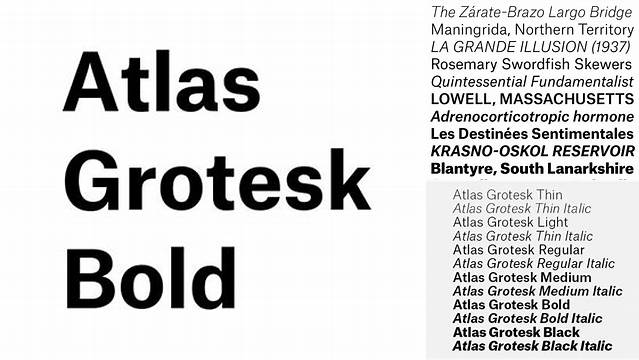
Introduction to Atlas Grotesk
Atlas Grotesk is a typeface that has garnered significant attention in the design world for its clean lines, versatility, and modern aesthetic. For designers and typography enthusiasts, finding the right font can be a game-changer, and Atlas Grotesk often fits the bill. This article delves into the specifics of Atlas Grotesk, exploring its characteristics, ideal use cases, and, most importantly, how you can access free TTF downloads.
The appeal of Atlas Grotesk lies in its simplicity and legibility. The font belongs to the sans-serif family, which is known for its lack of decorative serifs, making it ideal for both body text and headlines. Its neutral yet contemporary design allows it to seamlessly integrate into various projects, from websites and print materials to branding and editorial layouts. One of the key reasons designers gravitate towards Atlas Grotesk is its ability to convey a sense of clarity and sophistication. Its balanced letterforms and consistent strokes contribute to a harmonious reading experience, ensuring that the message is communicated effectively. Moreover, the font's versatility extends to different design contexts, whether it's a minimalist corporate website or a vibrant marketing campaign. Its adaptability makes it a valuable asset in any designer's toolkit.
Atlas Grotesk's modern aesthetic is characterized by its geometric structure and precise execution. The letterforms are meticulously crafted, resulting in a typeface that feels both contemporary and timeless. This balance is crucial, as it allows the font to remain relevant across different design trends and periods. The clean lines and open counters (the enclosed or partially enclosed negative space within a letter) contribute to its legibility, even at smaller sizes. This is particularly important for digital applications, where readability on screens is paramount. Furthermore, Atlas Grotesk offers a range of weights and styles, from light and thin to bold and black. This variety provides designers with the flexibility to create visual hierarchy and emphasis within their designs. The different weights can be used to differentiate between headings and body text, highlight key information, and add visual interest. The availability of italic styles further enhances the font's versatility, allowing for nuanced typography and expressive layouts. The attention to detail in Atlas Grotesk's design is evident in every aspect, making it a reliable choice for professional projects. Its ability to perform well in diverse contexts underscores its value as a foundational typeface for any design endeavor.
Key Features and Design Elements of Atlas Grotesk
To fully appreciate Atlas Grotesk, it's important to delve into its key features and design elements. Atlas Grotesk is celebrated for its versatility and contemporary appeal, making it a favorite among designers. Understanding what sets it apart can help you determine if it’s the right font for your project. Let's explore the unique characteristics that make Atlas Grotesk a standout choice.
One of the defining features of Atlas Grotesk is its clean and minimalist design. As a sans-serif typeface, it lacks the small decorative strokes (serifs) found in traditional fonts like Times New Roman. This absence of serifs gives Atlas Grotesk a modern and uncluttered appearance, making it ideal for projects that require a sleek and contemporary look. The simplicity of its design ensures that it doesn’t distract from the content, allowing the message to take center stage. The letterforms in Atlas Grotesk are carefully crafted with a focus on clarity and legibility. The strokes are consistent in thickness, and the counters (the enclosed spaces within letters like “o” and “p”) are open and generous, enhancing readability even at small sizes. This attention to detail is crucial for body text, where ease of reading is paramount. The balanced proportions of the letters contribute to a harmonious overall appearance, making Atlas Grotesk a pleasure to read. Its minimalist aesthetic also makes it highly adaptable to different design contexts, from web design and branding to print materials and editorial layouts. The neutrality of the font allows it to pair well with a variety of other typefaces, giving designers flexibility in creating visual contrast and hierarchy.
Another significant design element of Atlas Grotesk is its geometric structure. The letterforms are based on simple geometric shapes, giving the font a sense of precision and order. This geometric foundation contributes to its modern and sophisticated feel, making it a popular choice for corporate branding and professional communications. The clean lines and precise angles of Atlas Grotesk convey a sense of efficiency and clarity, which can be particularly effective in conveying complex information. The geometric structure also ensures consistency across the typeface, with each letterform complementing the others to create a cohesive and unified appearance. This consistency is essential for maintaining a professional and polished look in any design project. In addition to its geometric design, Atlas Grotesk boasts a wide range of weights and styles. This versatility allows designers to use the font in various applications, from headlines and subheadings to body text and captions. The different weights provide opportunities to create visual hierarchy and emphasis, while the italic styles add a touch of elegance and dynamism. The availability of multiple weights and styles makes Atlas Grotesk a comprehensive typeface that can handle a variety of typographic needs. Whether you need a bold weight for a striking headline or a light weight for delicate body text, Atlas Grotesk offers the flexibility to achieve your desired aesthetic. This adaptability is a key reason why it remains a favorite among designers and a valuable asset in any typographic toolkit.
Conclusion: The Value of Atlas Grotesk and TTF Fonts
In conclusion, Atlas Grotesk is a valuable typeface for any designer looking for a modern, versatile, and legible font. Its clean lines and geometric structure make it suitable for a wide range of projects, from corporate branding to web design. Understanding the key features and design elements of Atlas Grotesk can help you use it effectively in your designs. The TTF format ensures compatibility and scalability, making it a reliable choice for professional work. While finding free TTF downloads of Atlas Grotesk may require some research, the effort is well worth it. By following the best practices for font usage and installation, you can ensure that Atlas Grotesk enhances your projects and communicates your message effectively. So go ahead, explore the world of Atlas Grotesk, and elevate your designs with this exceptional typeface.